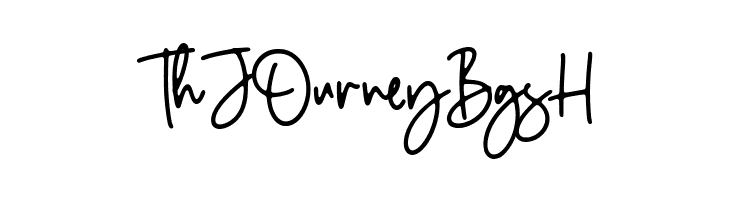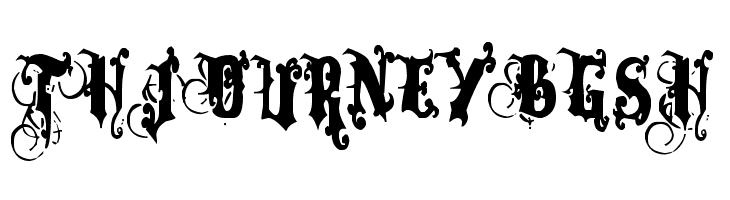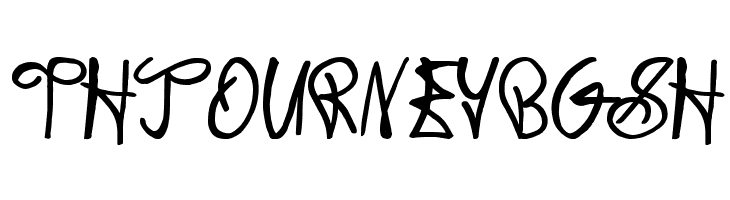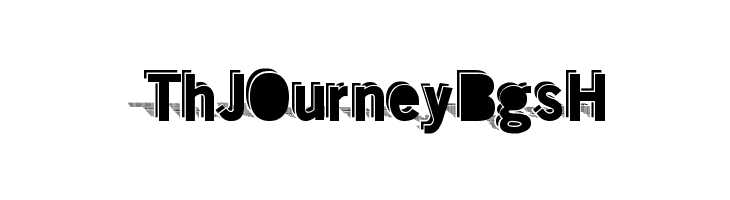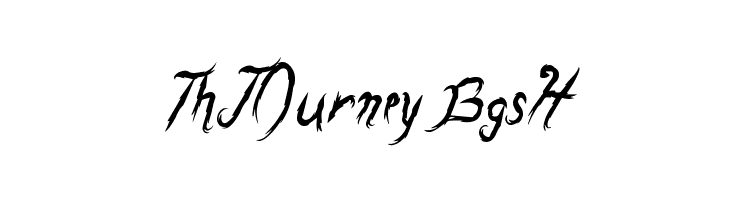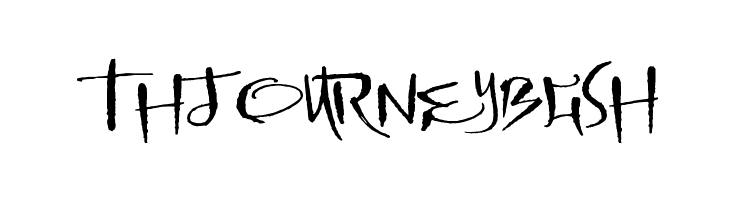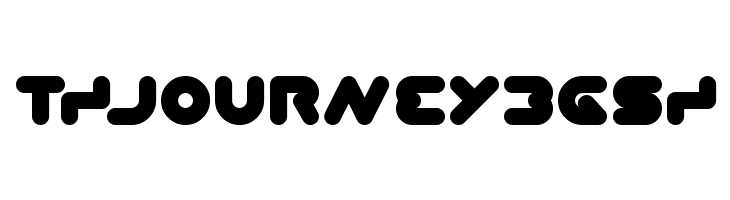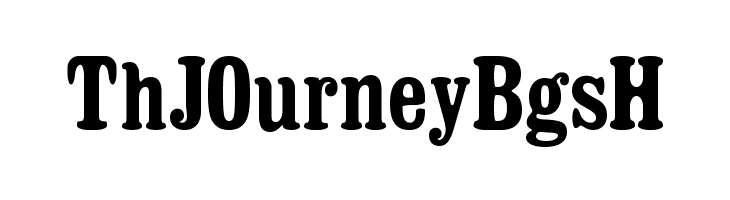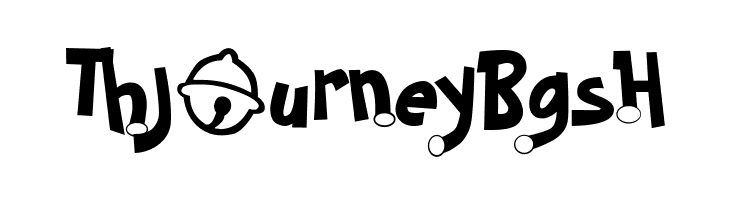
A bold, geometric font with a futuristic and modern design.
A playful handwritten font with rounded, consistent strokes and a casual feel.
A graceful script font with flowing, interconnected letters and elegant curves.
A Celtic-inspired font with bold, artistic characters and unique styling.
A fluid, handwritten-style font with elegant, connected letters.
An elegant and flowing script font with intricate loops and swashes.
An elegant, flowing script font with ornate uppercase and smooth lowercase letters.
A bold, brushstroke-style font with a textured, hand-painted appearance.
A bold, brush-style font with a dynamic and artistic flair.
A bold, hand-painted style font with textured strokes and dynamic energy.
A bold, angular font with a futuristic and decorative style.
A decorative font with intricate, tribal-inspired patterns in each character.
A bold, textured font with a distressed, handcrafted appearance.
A bold, industrial font with punk and cyborg influences.
A vintage, typewriter-inspired serif font with bold, irregular strokes.
A playful, handwritten font with smooth curves and a dynamic style.
A flowing, cursive font with interconnected characters and a handwritten style.
A bold, hand-drawn font with a playful and organic style.
A bold, playful handwritten font with dynamic, slanted characters.
A bold, geometric font with a modern and technical design.
A bold, italicized font with a modern, geometric design.
A geometric, modern font with octagonal shapes and thin strokes.